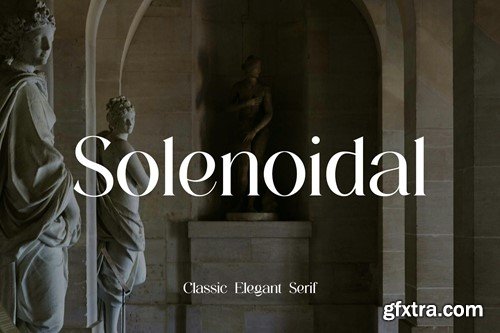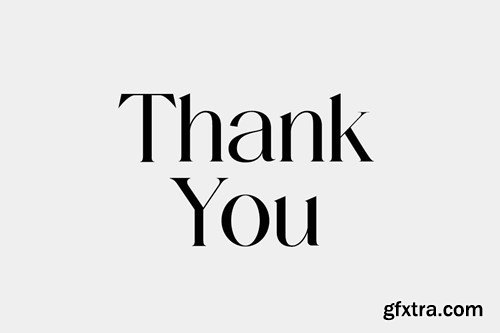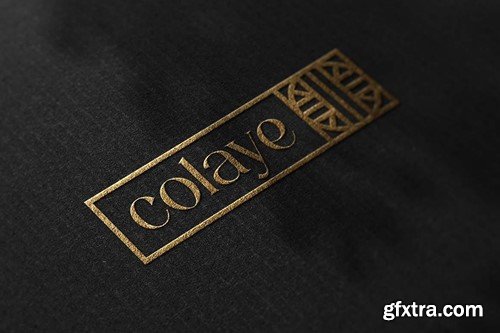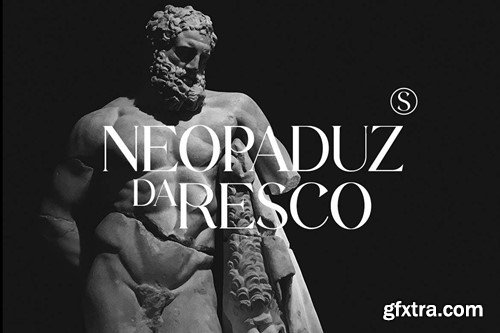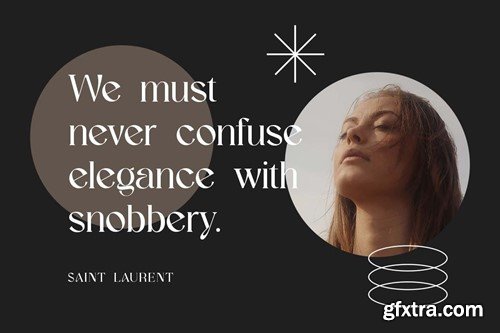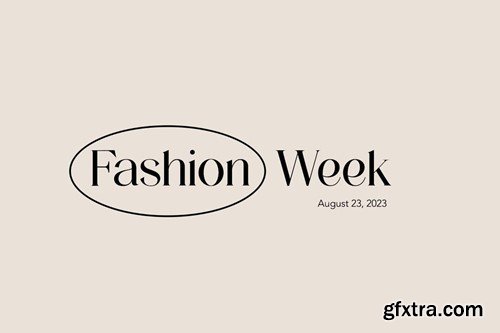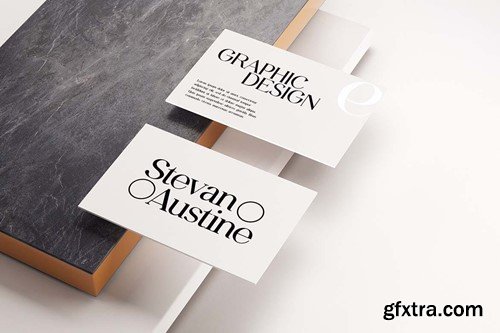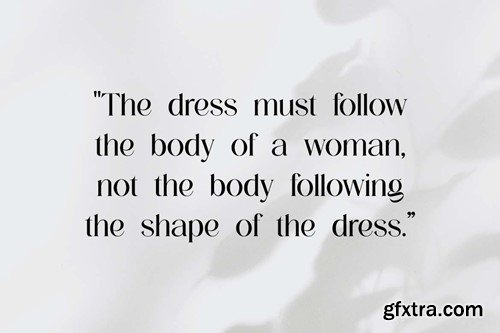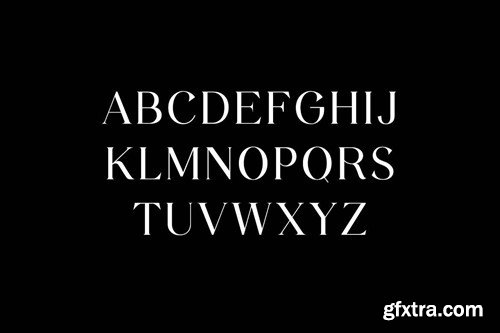
Solenoidal Classic Elegant Serif Font
Introducing our new product the name is Solenoidal Classic Elegant Serif Font. Classic Serif font that feels beautiful classy, elegant, and modern. This font is ideally suited for a wide variety of projects, such as signature, stationery, logo, wedding, typography quotes, magazine or book covers, website headers, clothing, branding, packaging design, and more. Also, fashion-related branding or editorial design displays both masculine and feminine qualities.